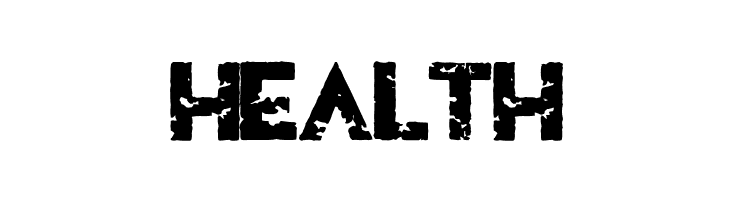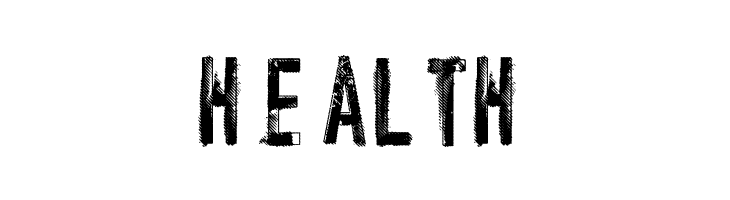
A textured, hand-drawn style font with an artistic and rugged appearance.
A bold, distressed font with a grunge texture and rugged appearance.
A bold, hand-drawn font with rugged, expressive strokes.
A bold, distressed font with a rugged, industrial aesthetic.
A rugged, hand-drawn brush-style font with dynamic strokes and an organic feel.
A bold, distressed font with a vintage, industrial feel.